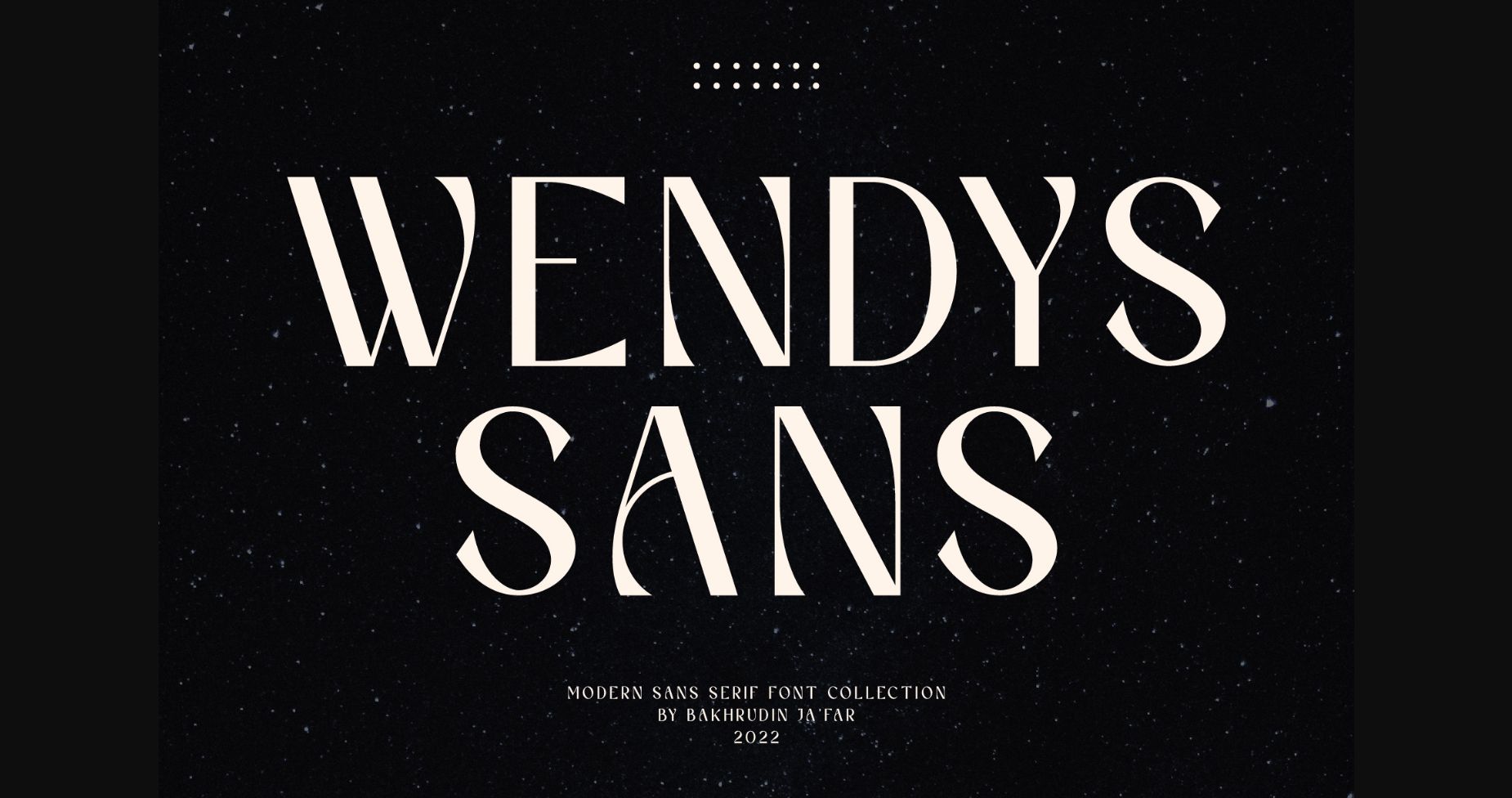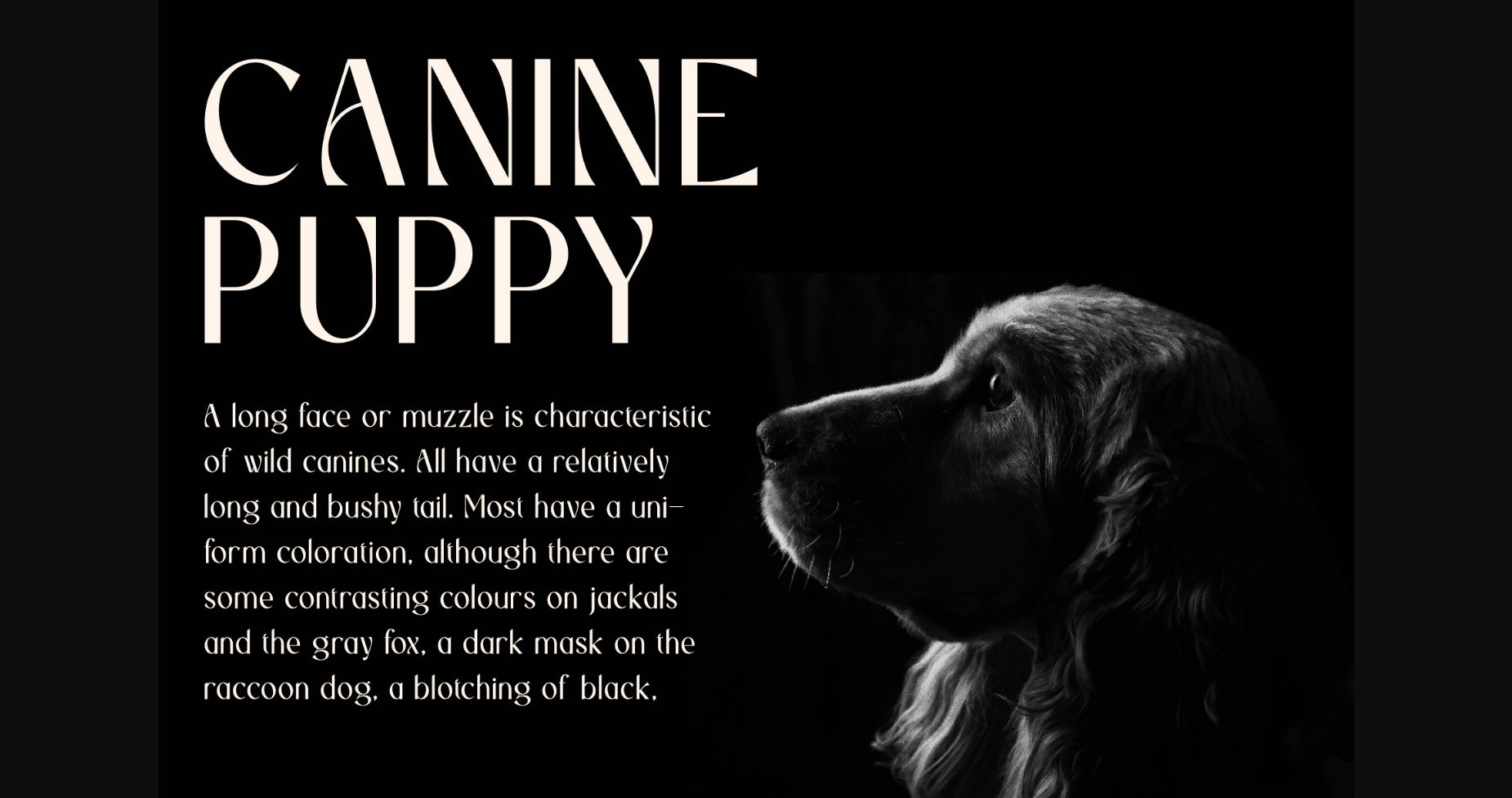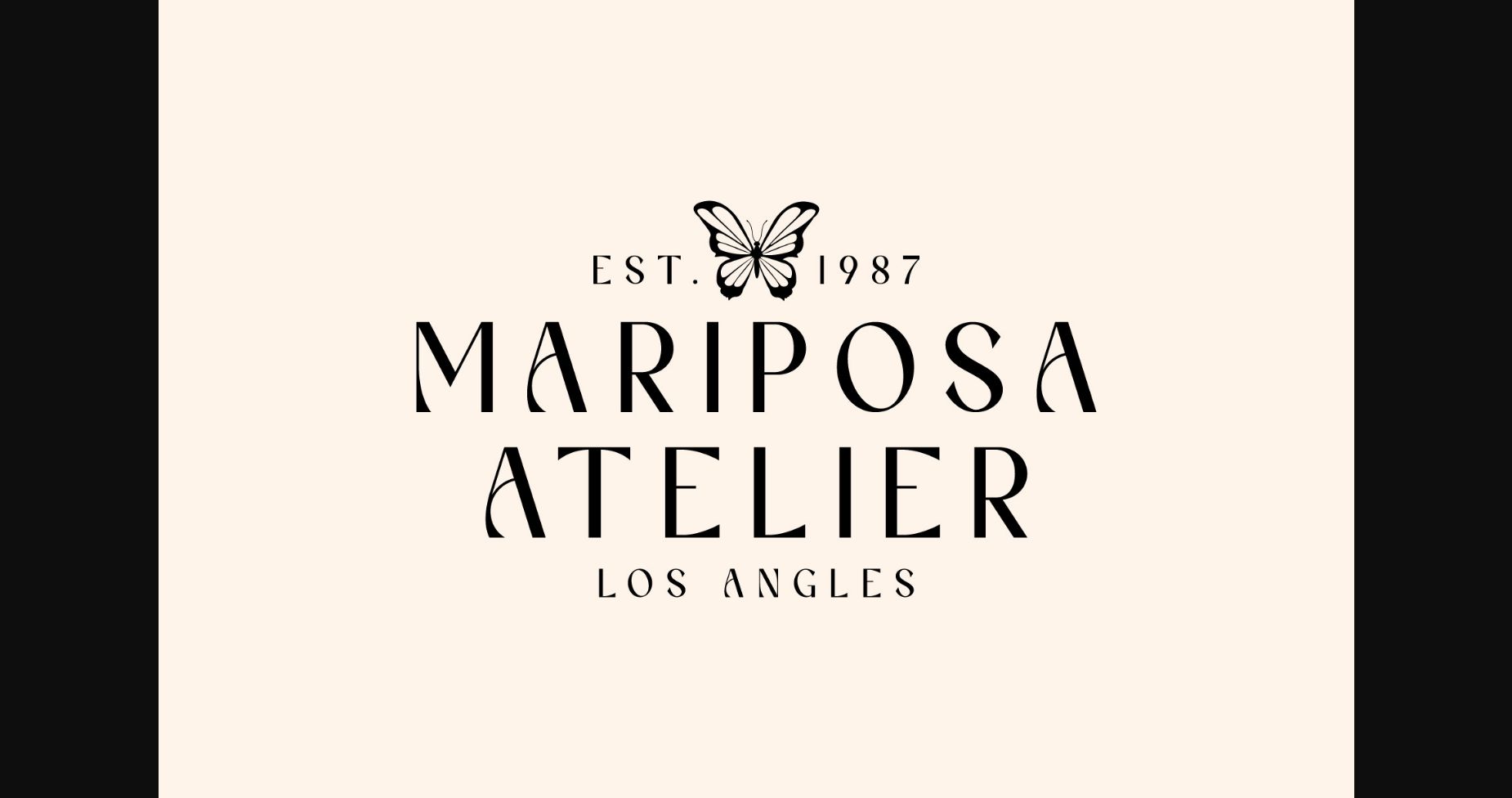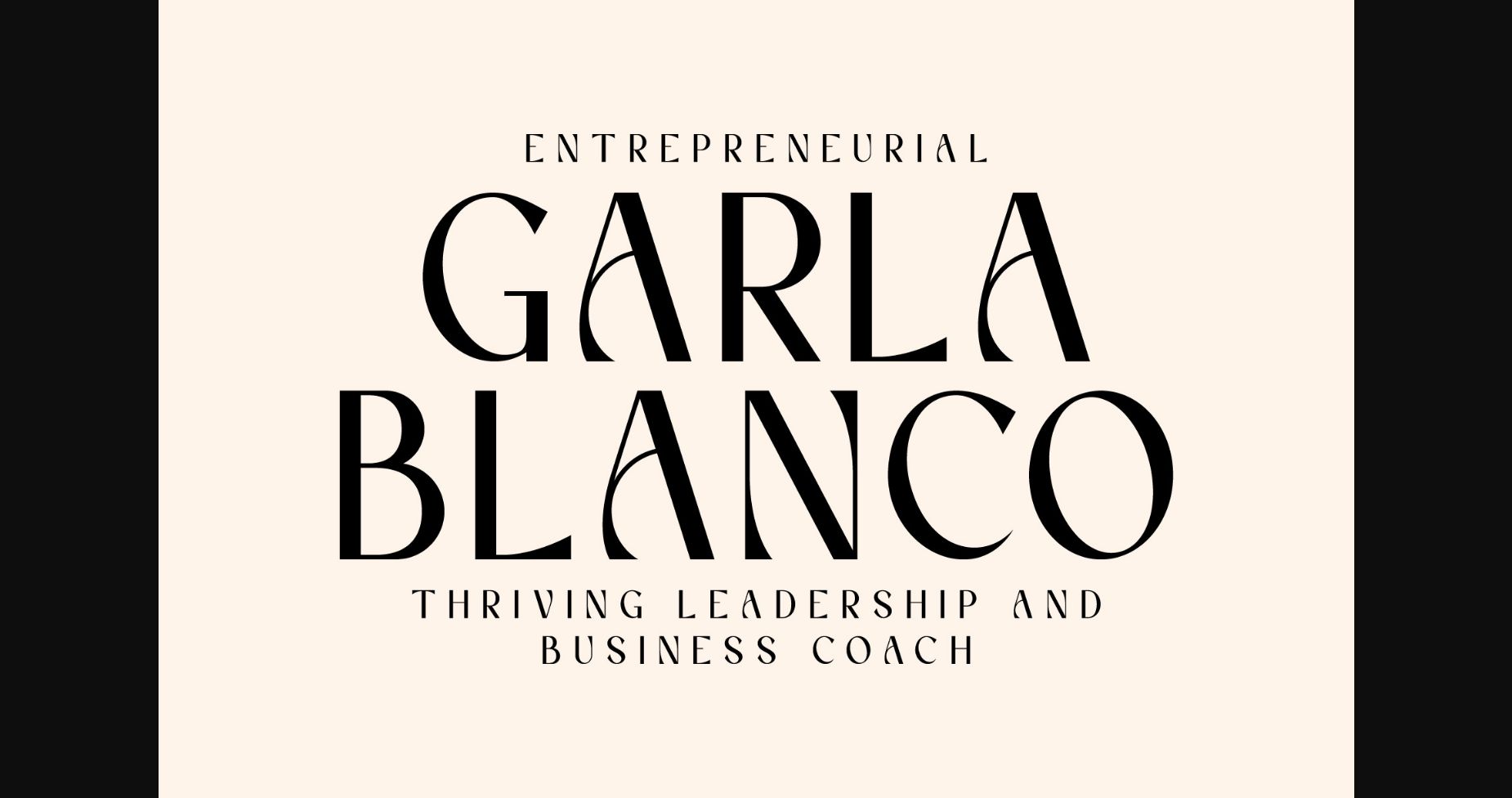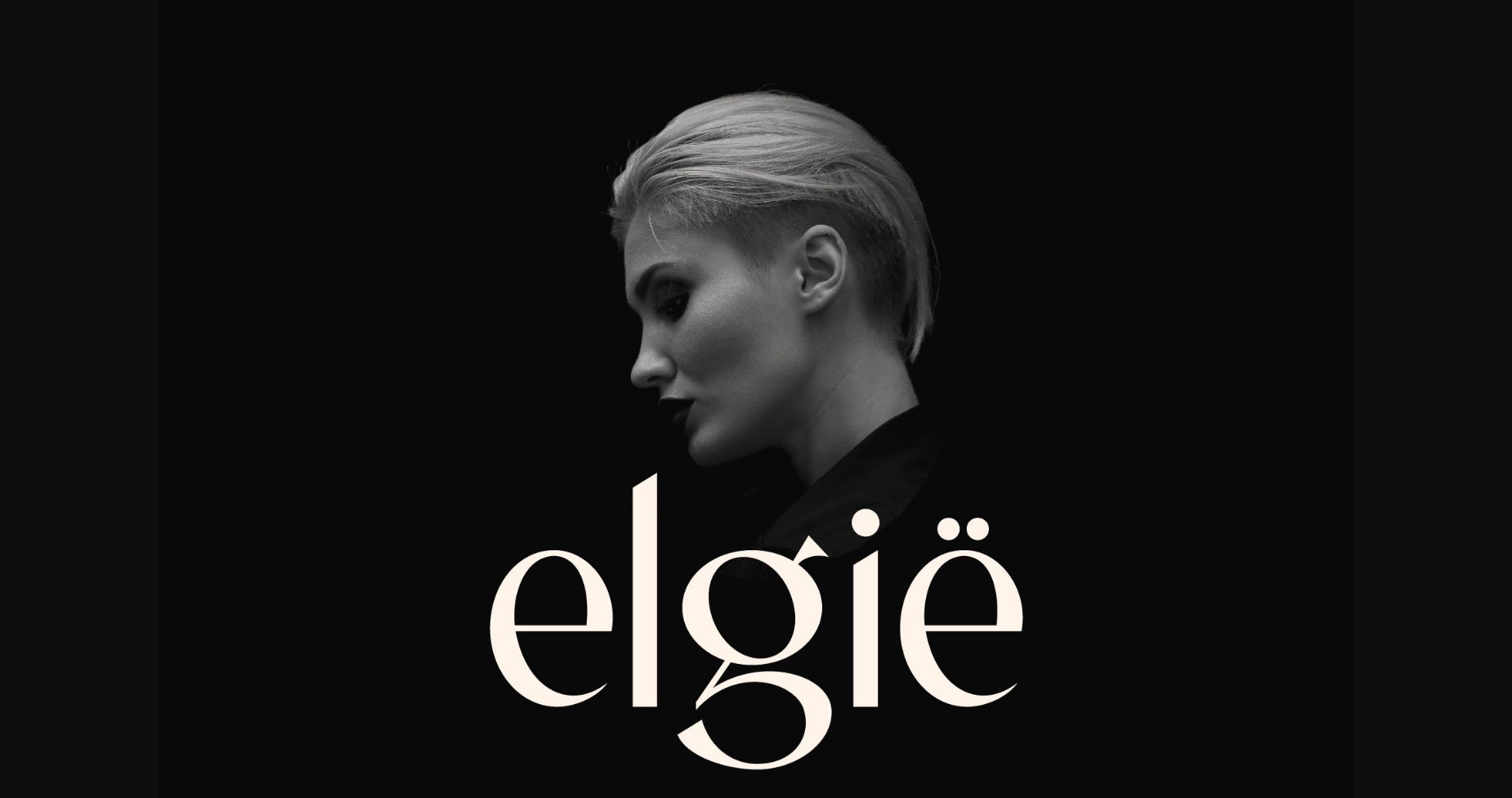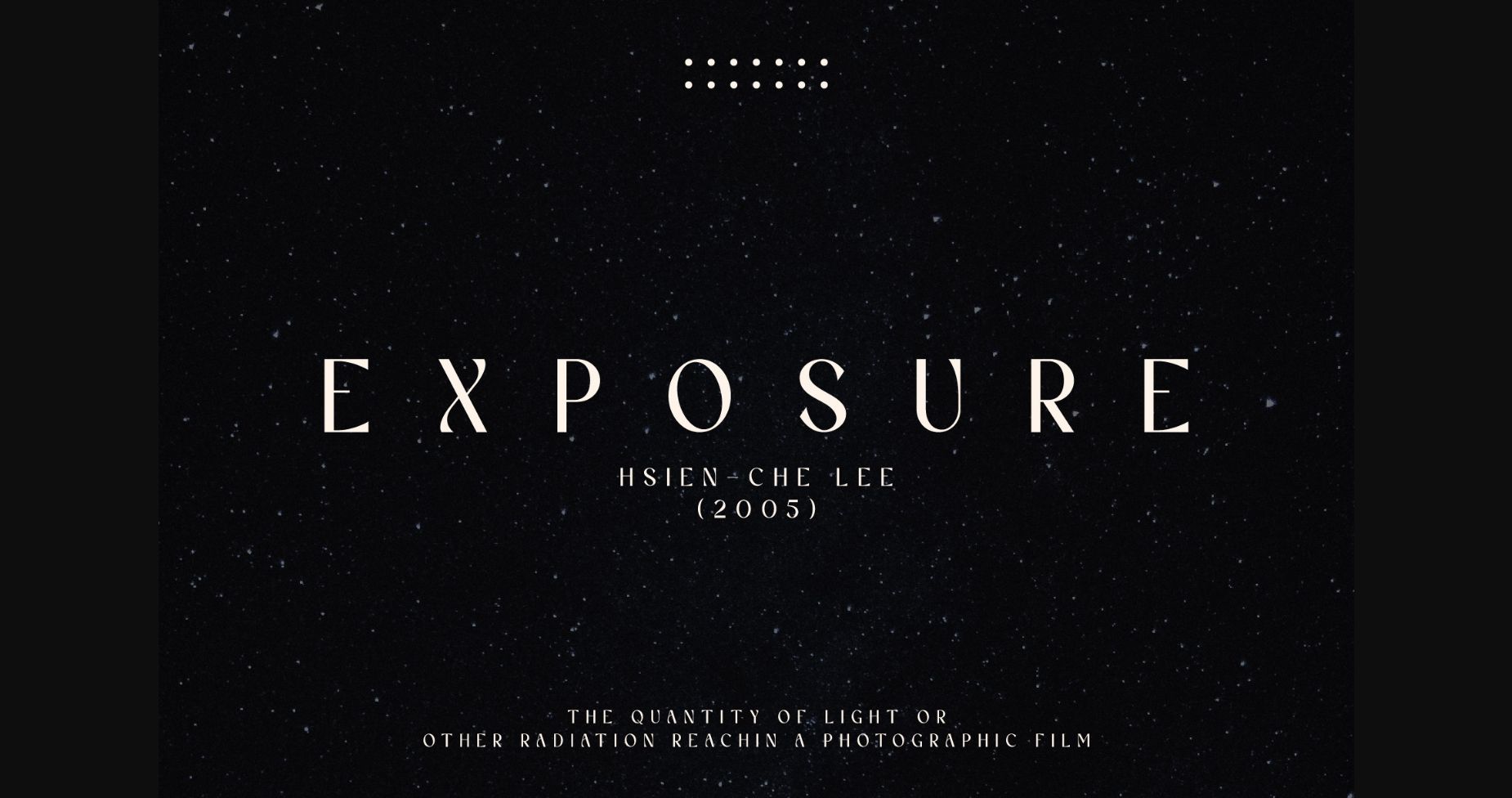
About Wendys Font
Wendys is a modern and stylish sans serif font, that has unique stroke characters.
Whether you’re using it for crafts, digital design, presentations, or making greeting cards, this font has the potential to become your favorite go-to font, no matter the occasion!